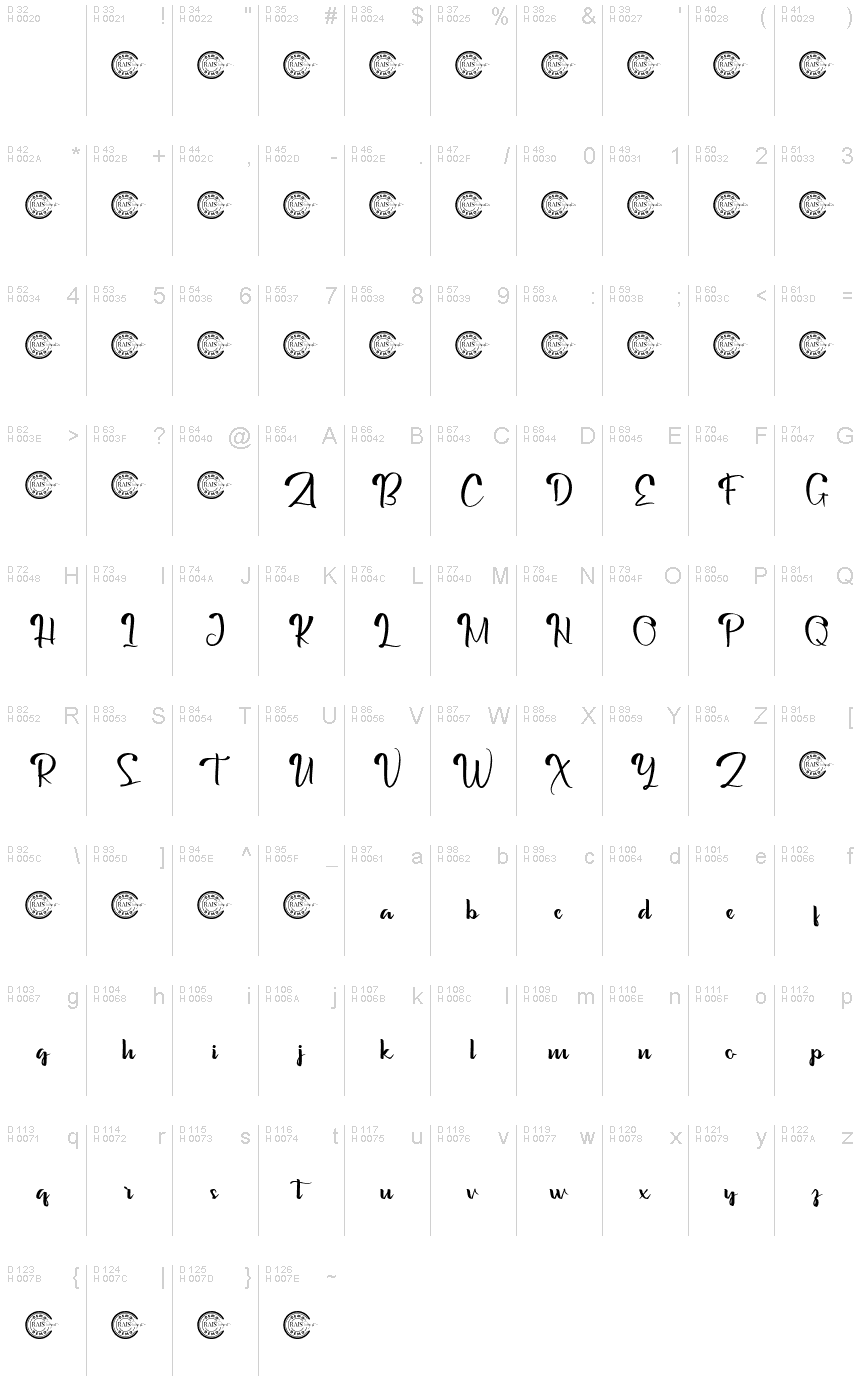
Zalina Demo
Zalina is a charming and delicate semi-light handwritten font, created by the talented designer RaisProject. This font exudes an elegant yet playful vibe, making it perfect for a variety of projects. Whether you're designing invitations for a whimsical wedding or crafting social media graphics for a boutique fashion brand, Zalina's soft curves and romantic flourishes will add the perfect touch of personality to your designs. With its legible letters and unique style, this semi-light font is sure to catch the eye and leave a lasting impression. Bring your designs to life with Zalina - the ultimate choice for anyone looking for an artistic twist on traditional typography!